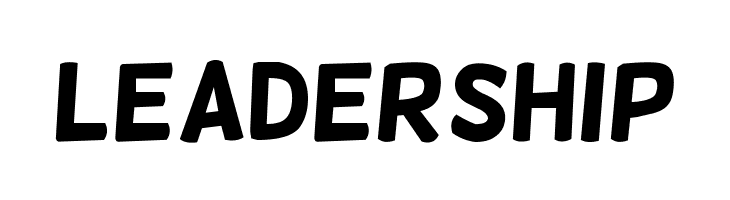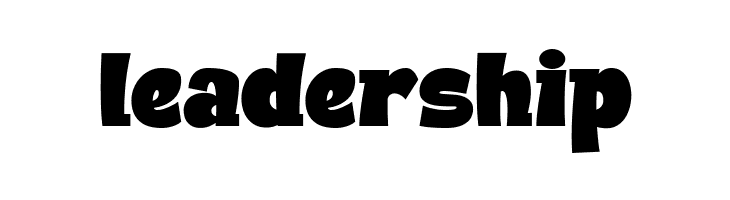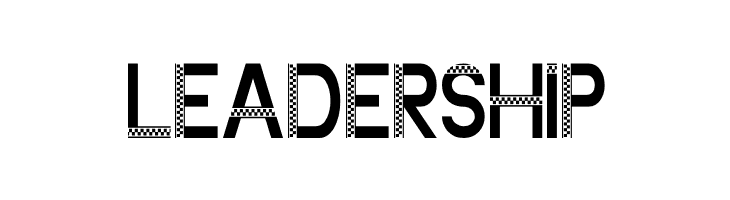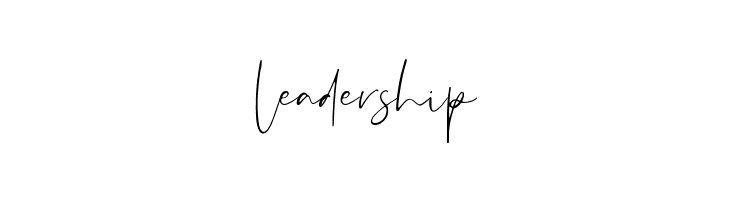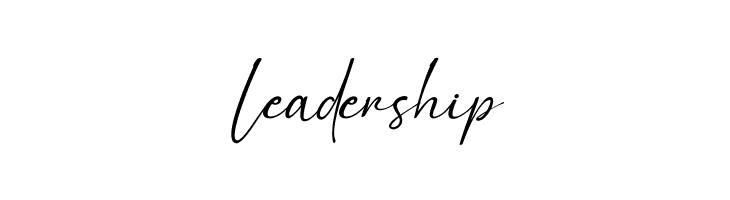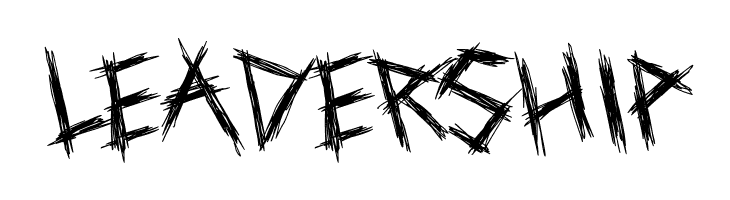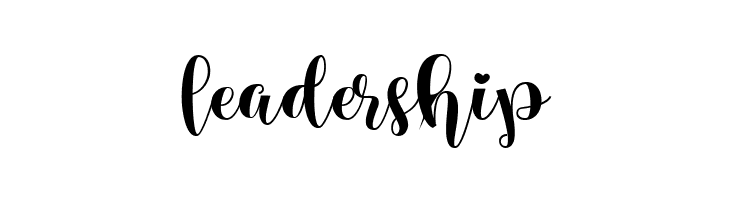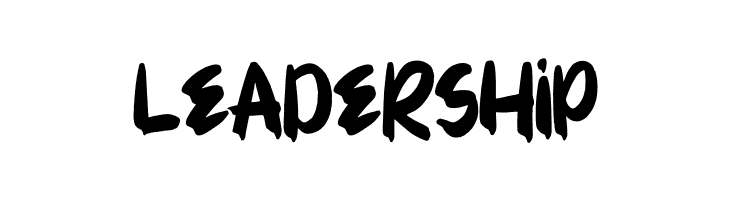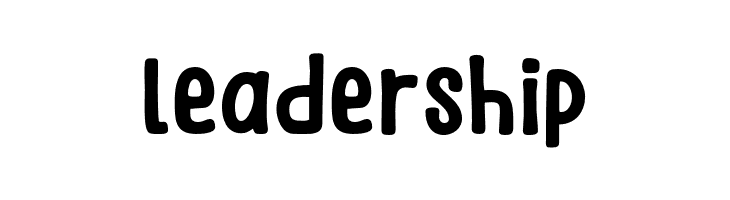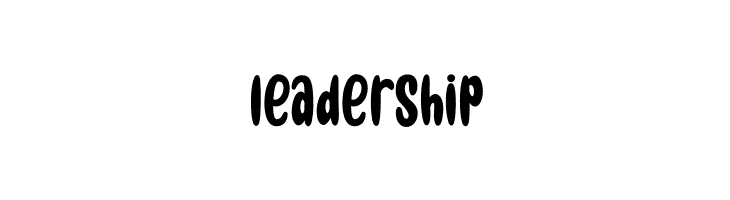
A bold, hand-drawn font with a chaotic, sketch-like style.
A modern, elegant handwritten font with fluid strokes and dynamic slant.
A bold, decorative font with jagged outlines and a dynamic, energetic style.
A bold, wavy outlined font with a playful and dynamic style.
A dynamic and flowing script font with connected letterforms and a modern classic appeal.
A bold, shadowed font with a playful and dynamic style.
A playful, hand-drawn font with unique and artistic characters.
A classic serif font with elegant curves and sharp serifs, ideal for traditional and stylish designs.
A collection of ornate, heraldic-inspired symbols with intricate details.
A delicate and flowing script font with elegant, continuous strokes.
An elegant, festive script font with flowing, cursive letterforms and elaborate swashes.
A modern, handwritten font with elegant, flowing cursive characters.
A playful handwritten font with a casual and friendly style.
A bold, playful font with rounded edges and a slightly condensed structure.
A graceful script font with decorative flourishes and smooth, connected letters.
Playful, rounded handwritten font.
An elegant and flowing script font with refined cursive letters.
A graceful script font with elegant, flowing lines and high contrast.
A bold, brush-style font with dynamic and energetic strokes.
A playful, rounded font with smooth curves and a friendly design.
An edgy, scribble-like font with chaotic, jagged strokes.
A decorative font with cartoon characters holding text banners, perfect for playful headlines.
A bold, hand-drawn font with a playful, artistic style.
A classic serif font with high contrast and elegant, sophisticated styling.
A classic serif font with medium contrast and elegant styling.
Playful serif font with handcrafted, quirky details.
A lively serif font with hand-crafted, organic details.
A bold, rounded font with a playful and modern style.
A playful and elegant handwritten font with flowing, cursive letterforms.
A delicate and elegant handwritten font with fluid, continuous strokes.
A bold, playful font with exaggerated curves and thick strokes.
A bold, modern font with a unique checkered pattern and geometric design.
A bold, geometric font with a unique checkerboard pattern.